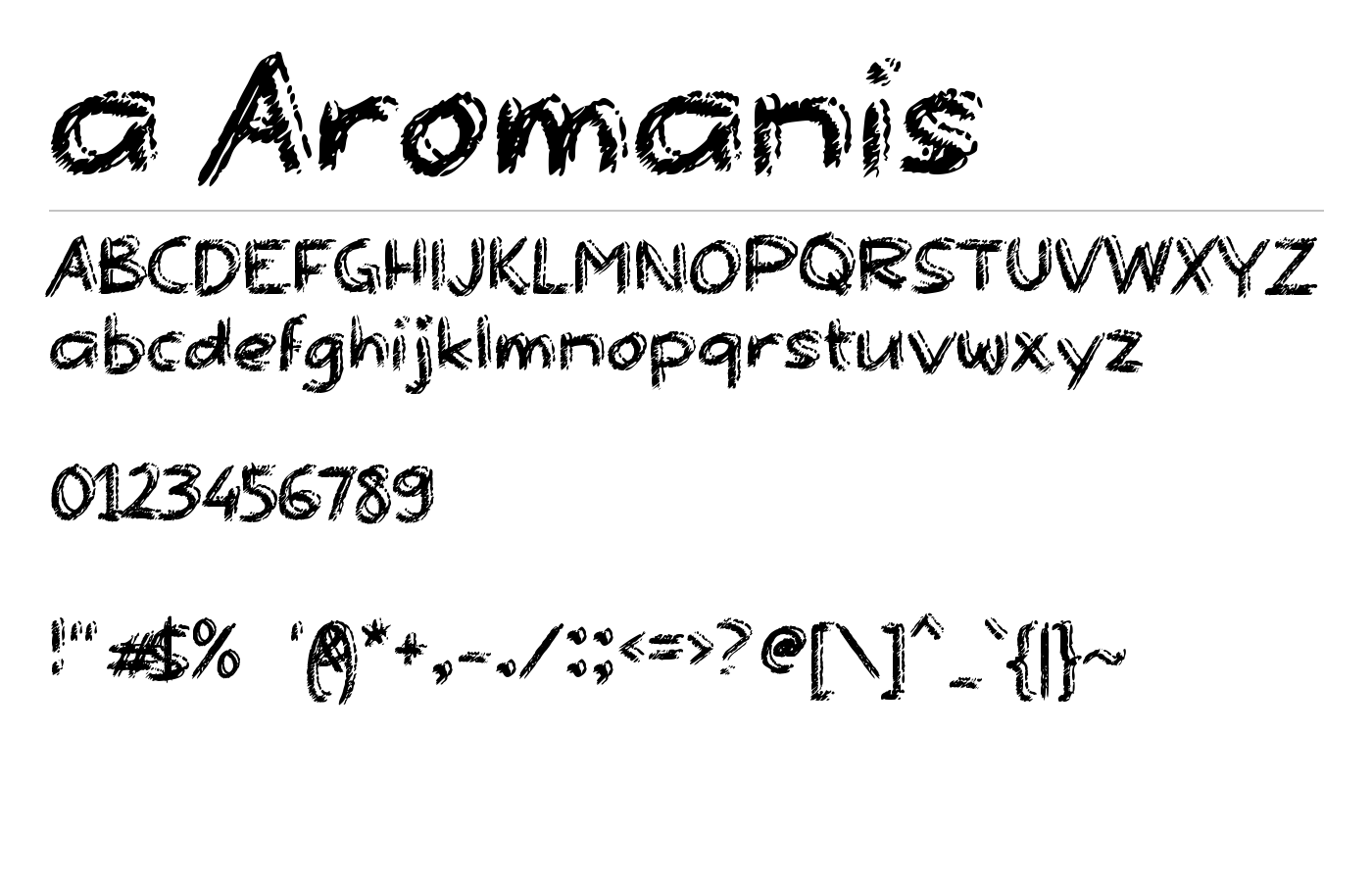
Aromanis is a textured, hand-drawn sans serif font with a bold, rough appearance that creates a distinct, artistic vibe. Its irregular strokes and playful, sketch-like style make it perfect for creative designs, informal branding, and projects that seek an edgy, handcrafted feel. This font works well in headlines, posters, and packaging where a unique, expressive touch is desired.
a Aromanis Font
About a Aromanis Font